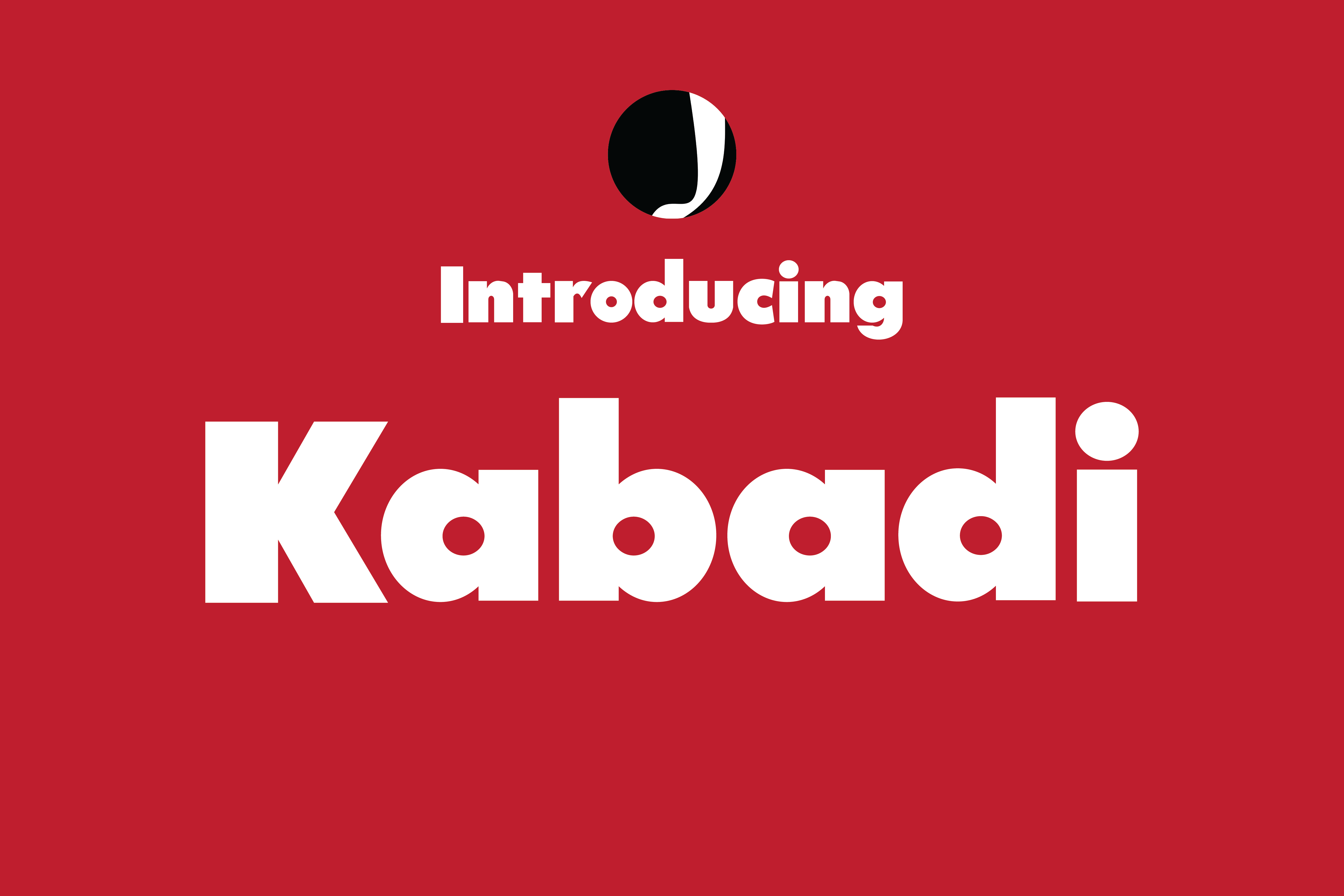
Kabadi-Big Font
Here is our one of the finest bold display font "Kabadi" The name is basically a wrestling in punjabi language, the font is tribute to that profession. This is ideal for headlines. Visit our 2$ shop to grap some great stuff in only 2$...............Sounds free